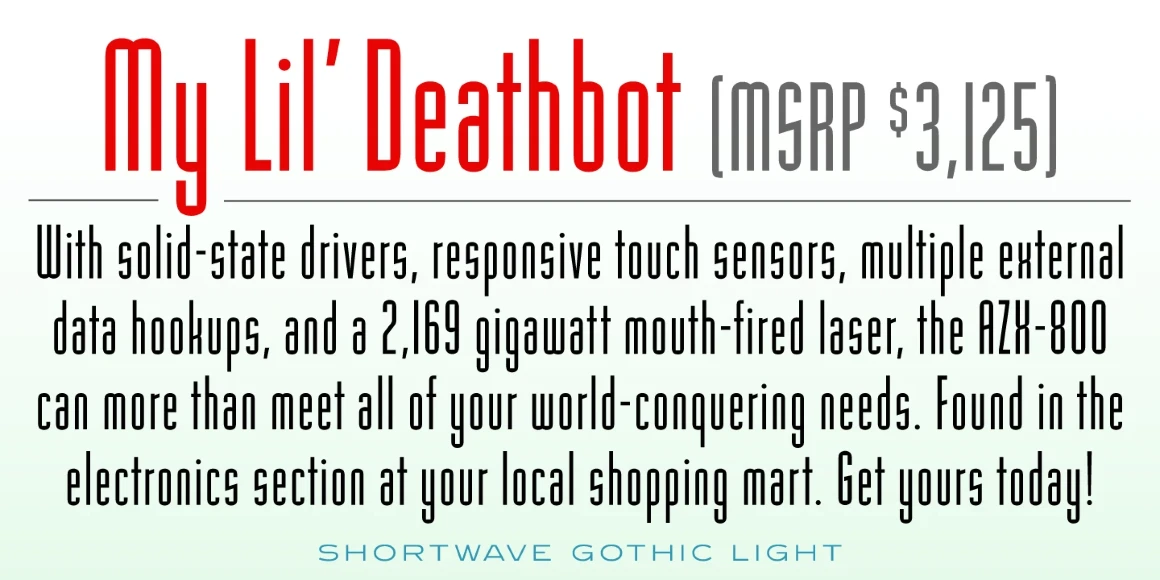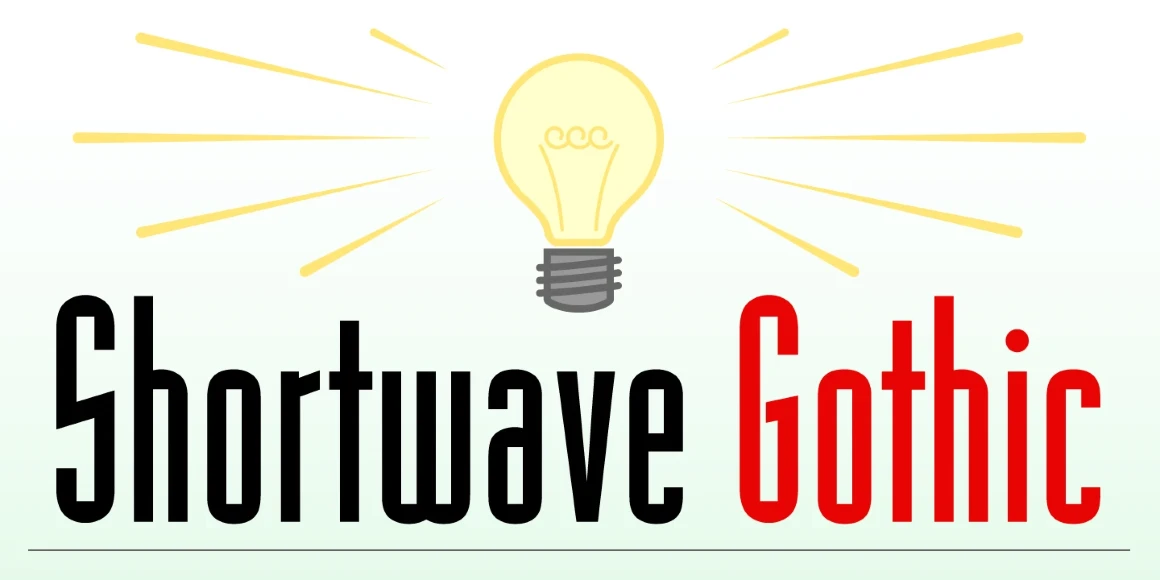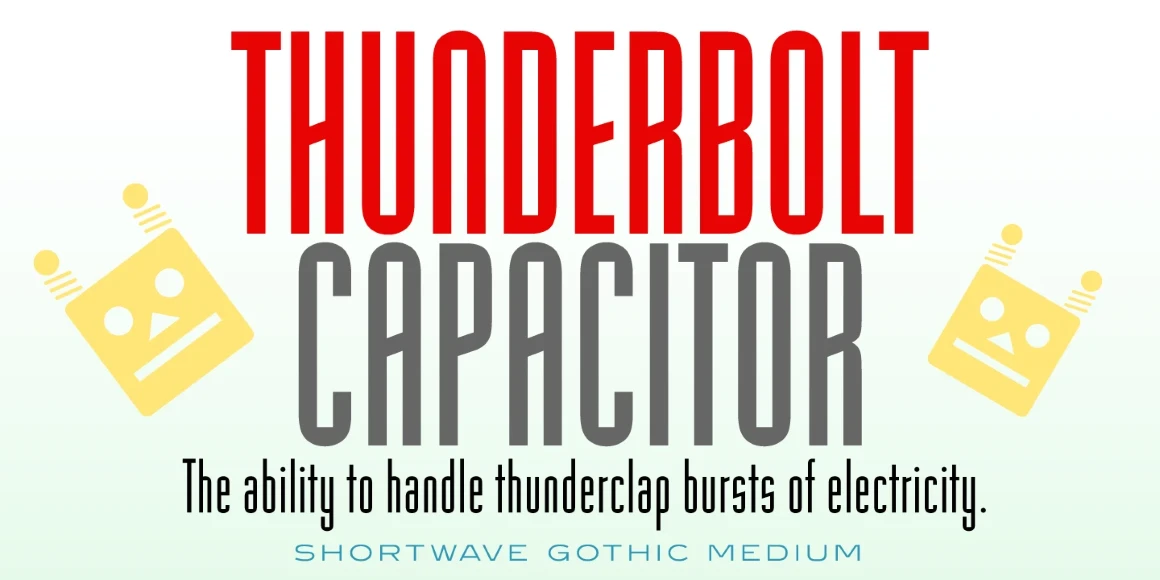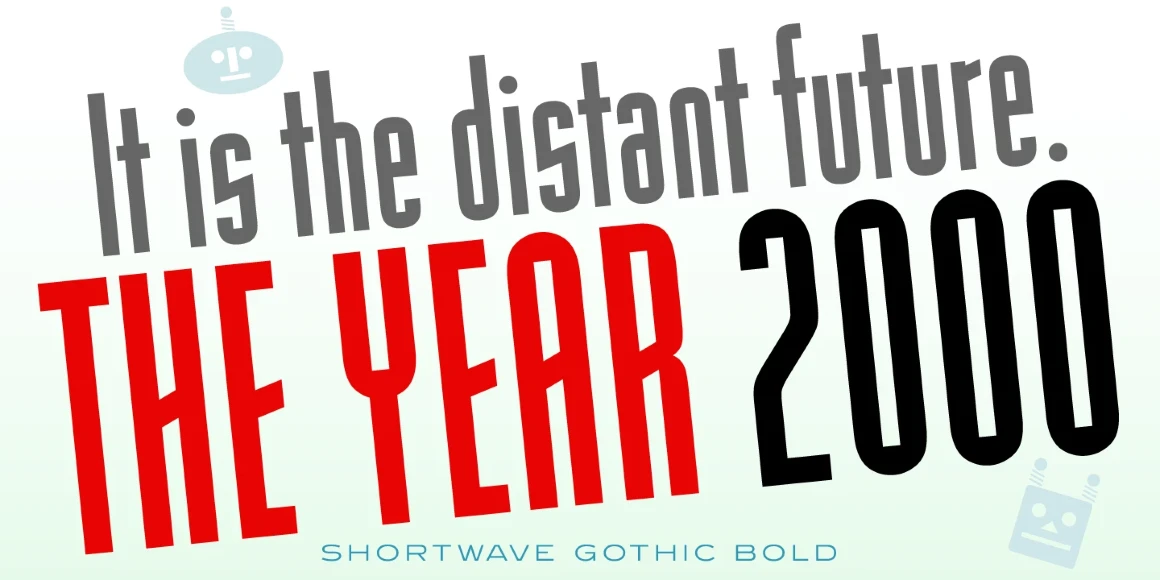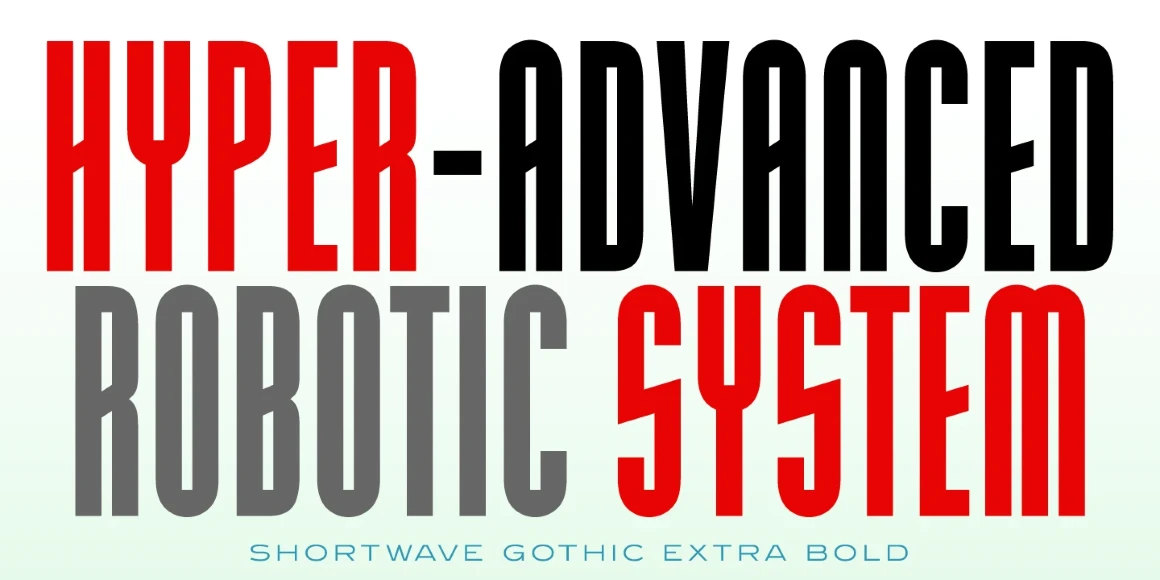
Shortwave Gothic
Shortwave Gothic Light
Shortwave Gothic Medium
Shortwave Gothic Bold
Shortwave Gothic Extra Bold
Shortwave Gothic is a decorative, compressed, and sans serif font family. The family was designed and produced by Steve Jackaman (ITF) in 2003. Being a (modest) shortwave radio fan, Jackaman was inspired to design a typeface that celebrates this incredible technology. The smooth curves and geometric sharp angles incorporated into this unique typeface are meant to symbolize and encapsulate the “tuning” of the radio signals.